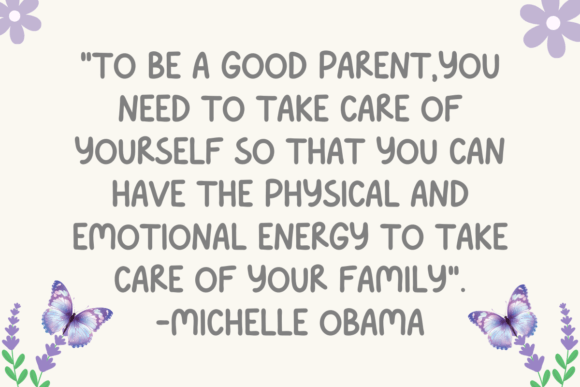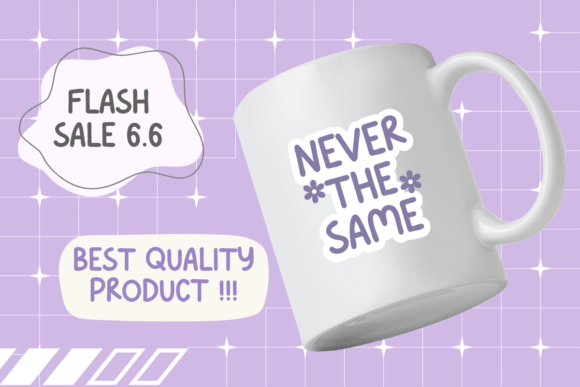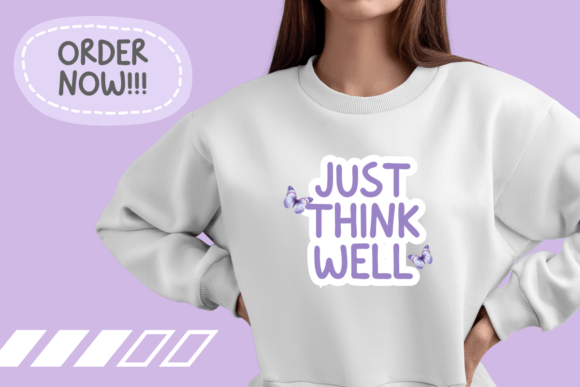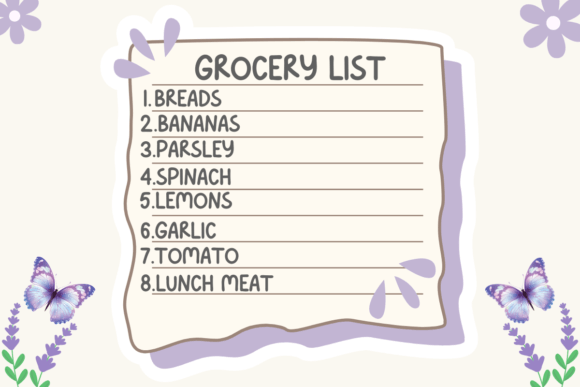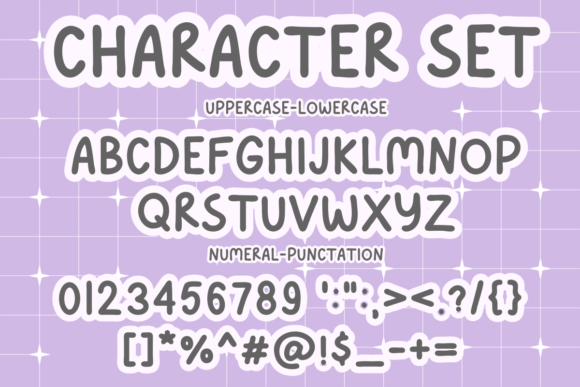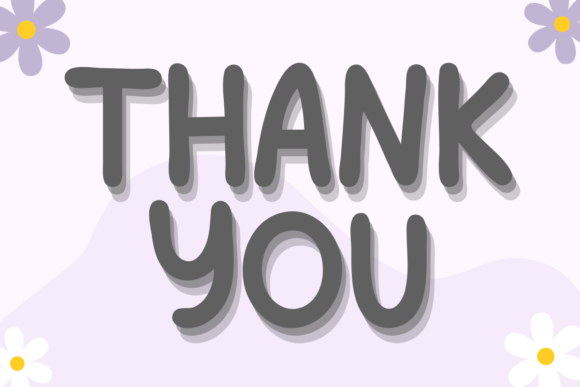
Introduction to More Pretty Font
More Pretty is a cute and fun handwritten font with a feminine touch and natural, playful strokes.
It includes uppercase, lowercase letters, and punctuation This versatile font is perfect for journals, scrapbooks, stickers, planners, quotes, womenโs t-shirts, grocery lists, Canva projects, and many other creative ideas.